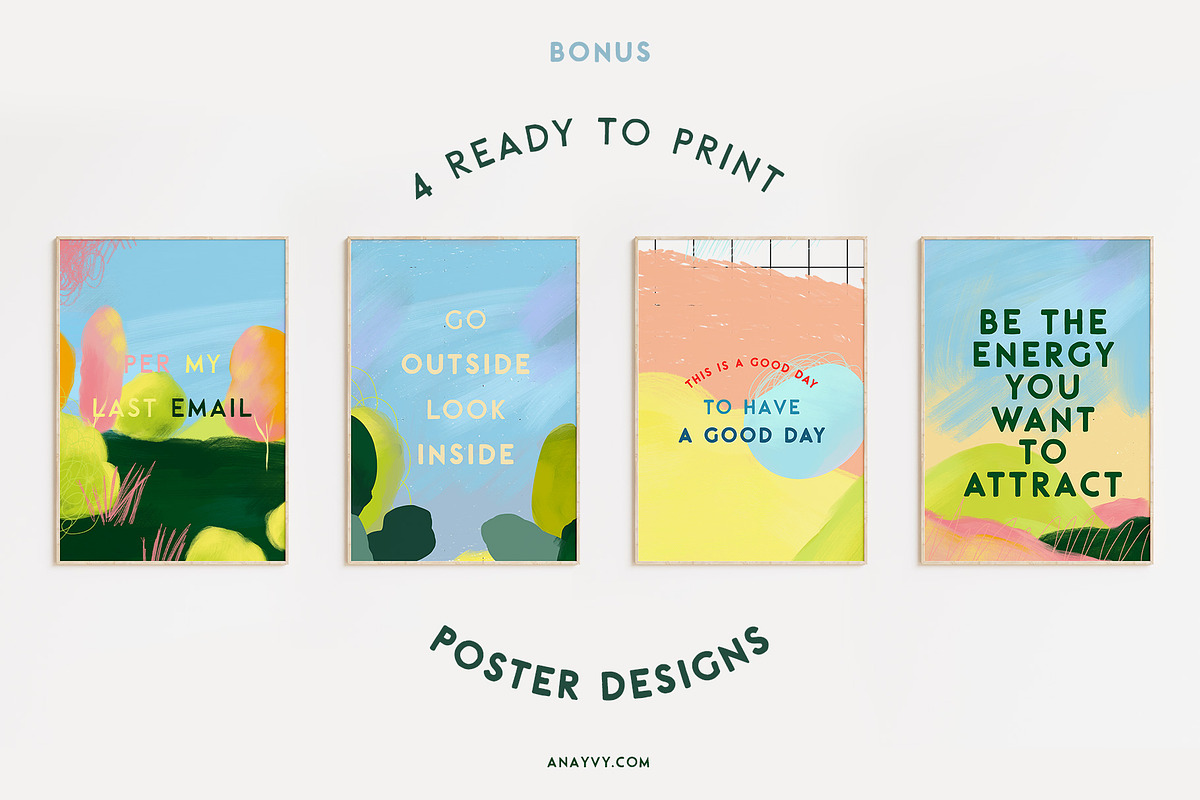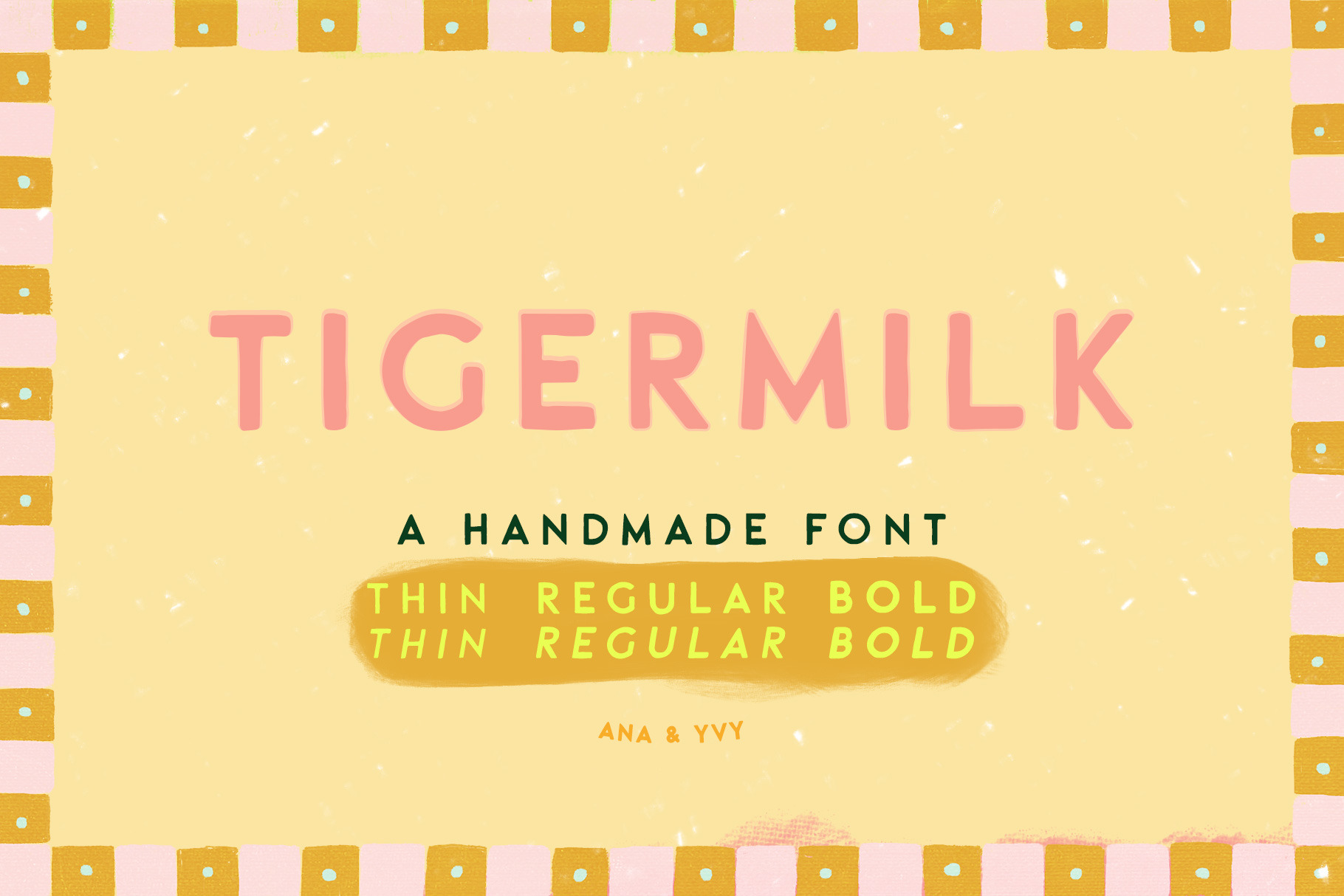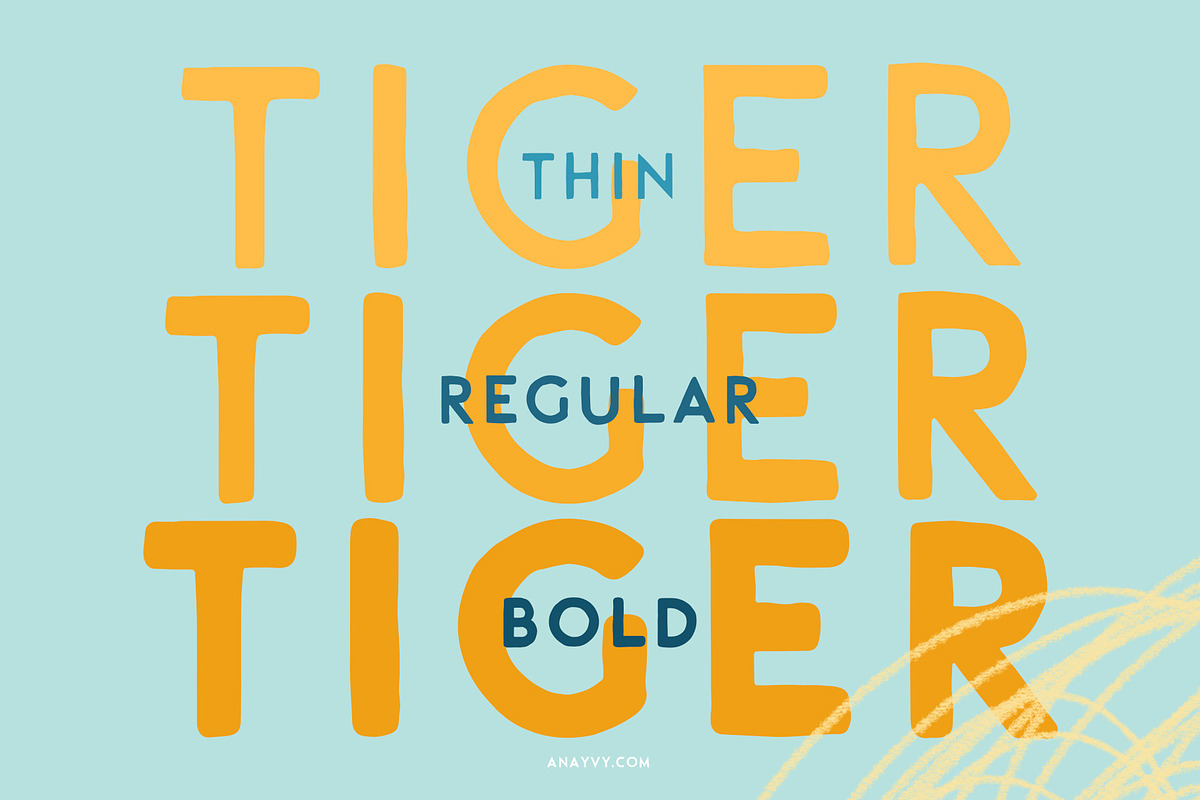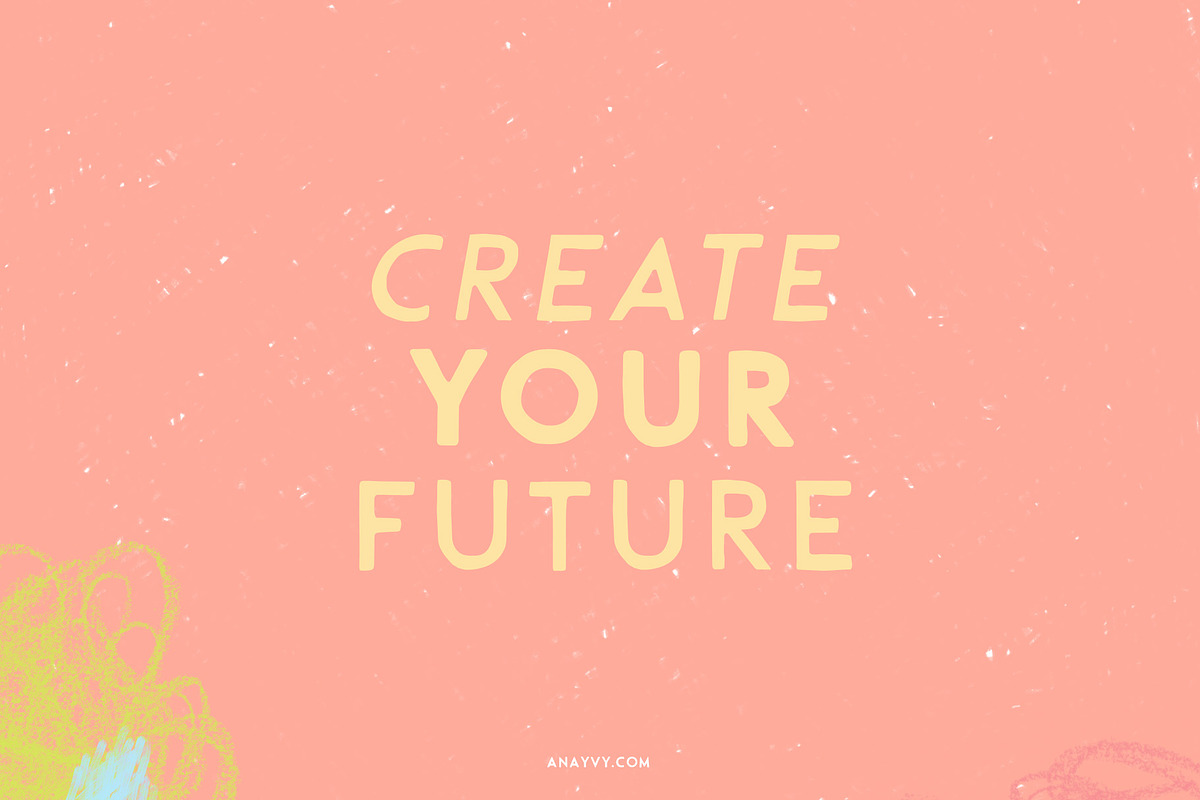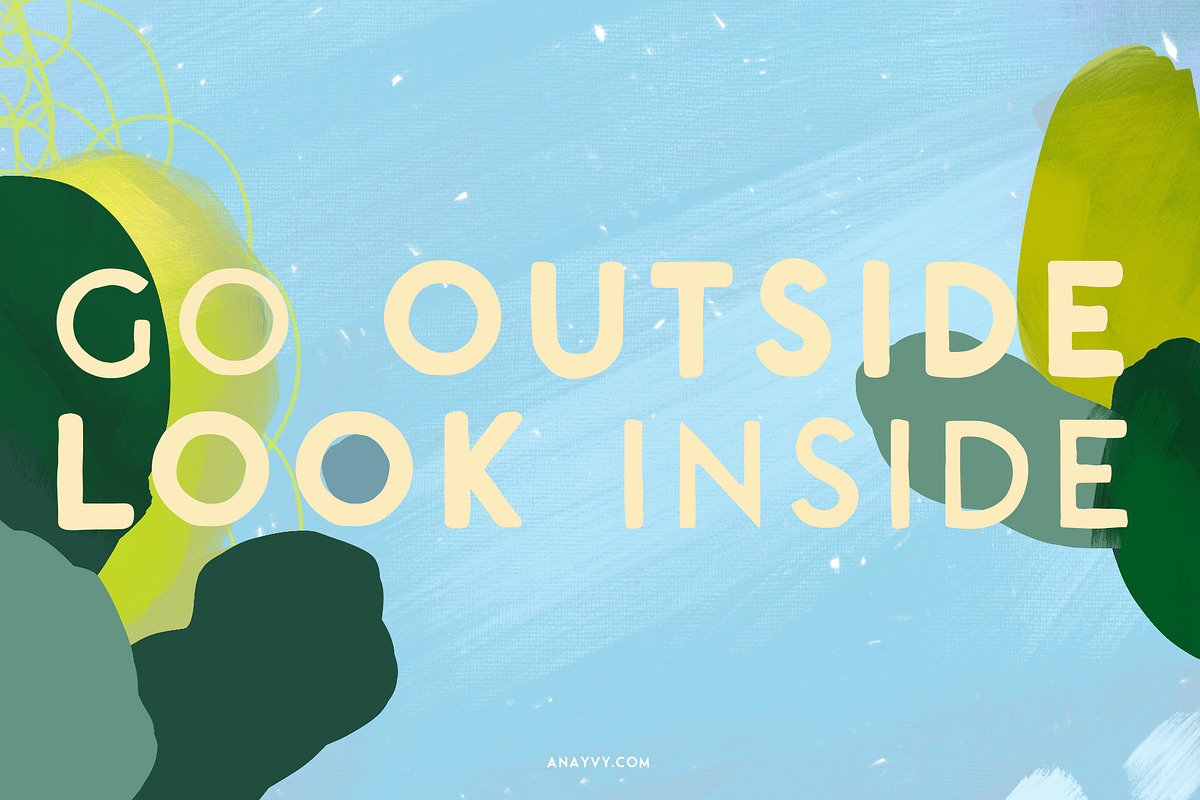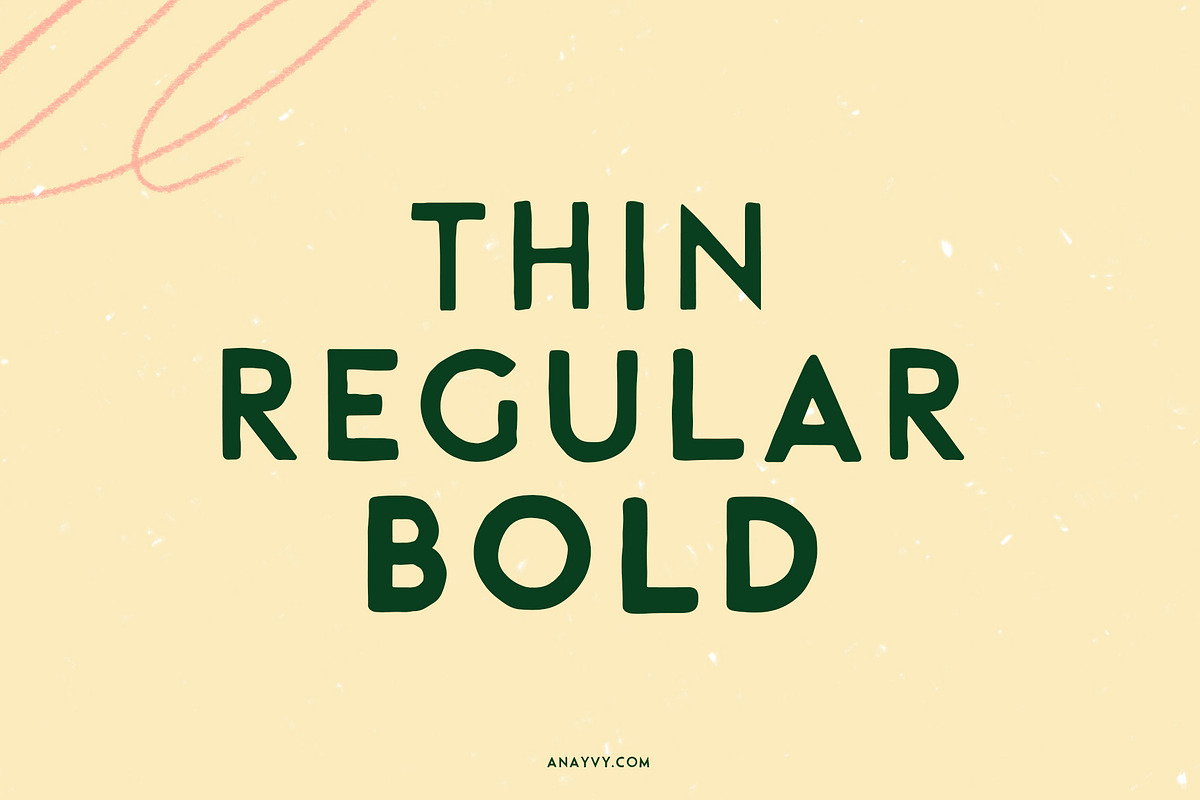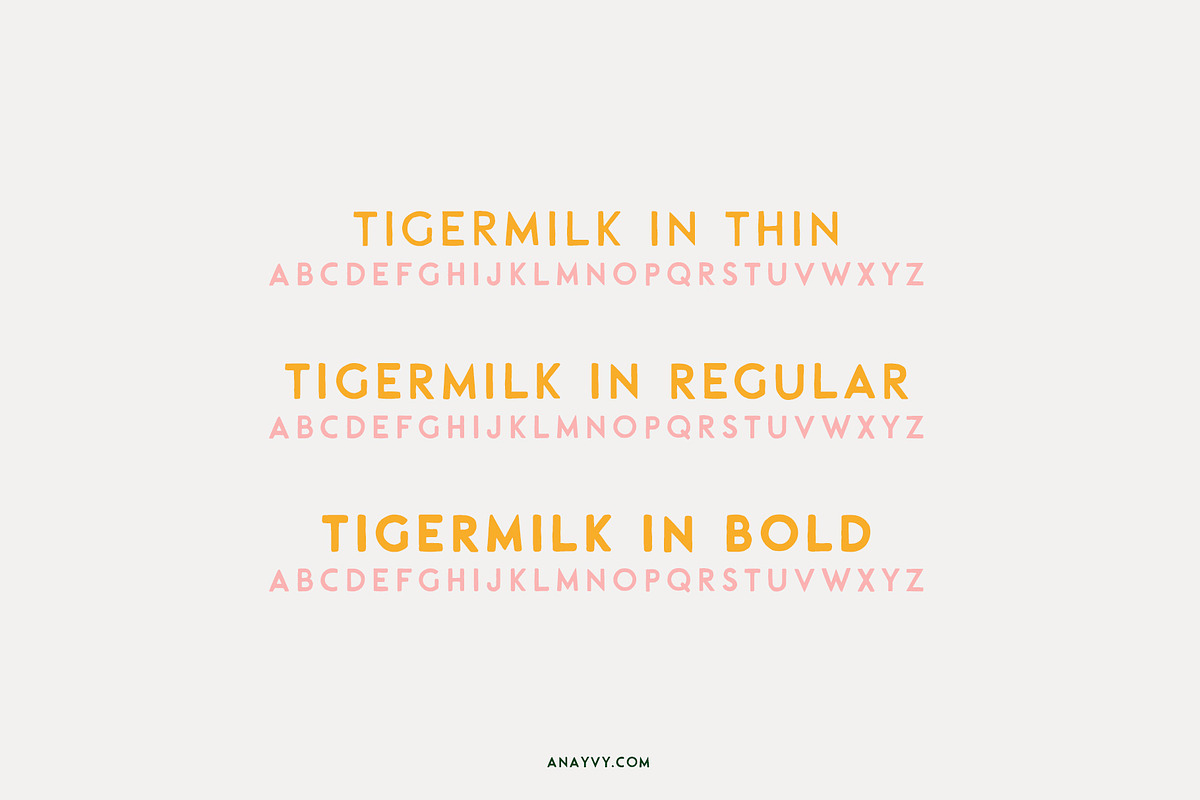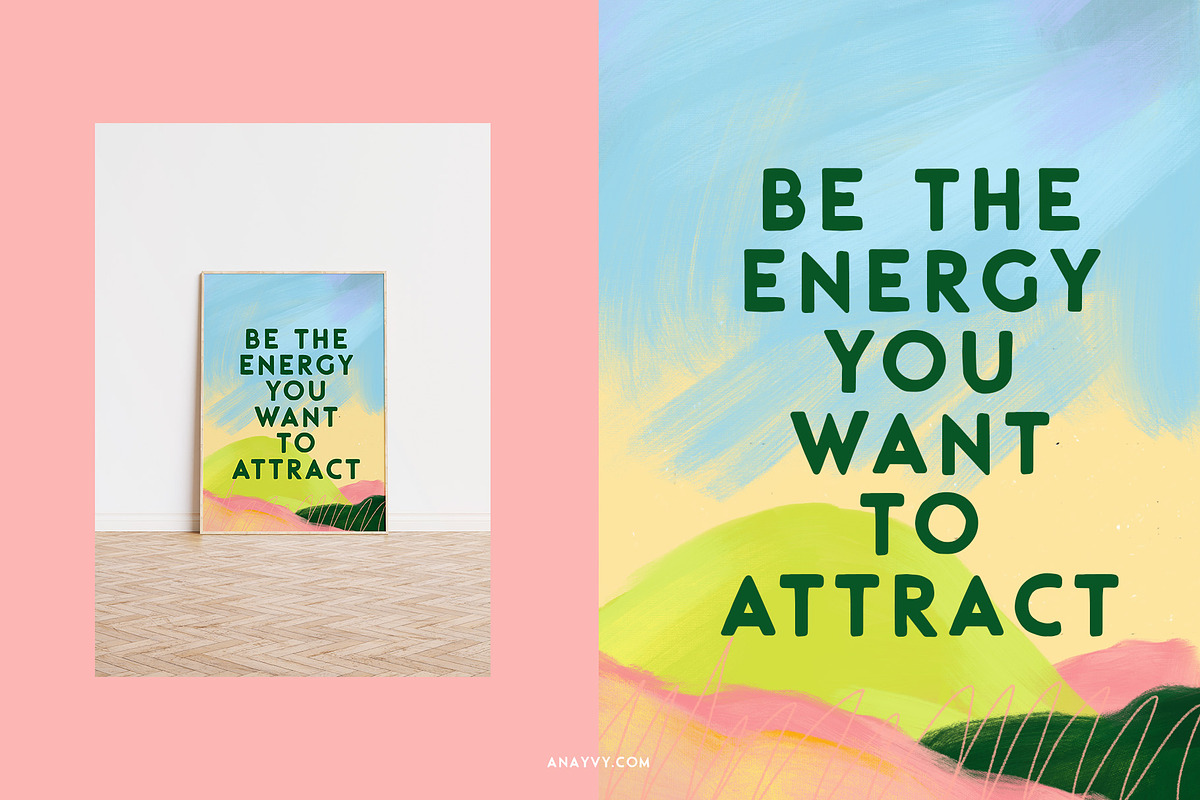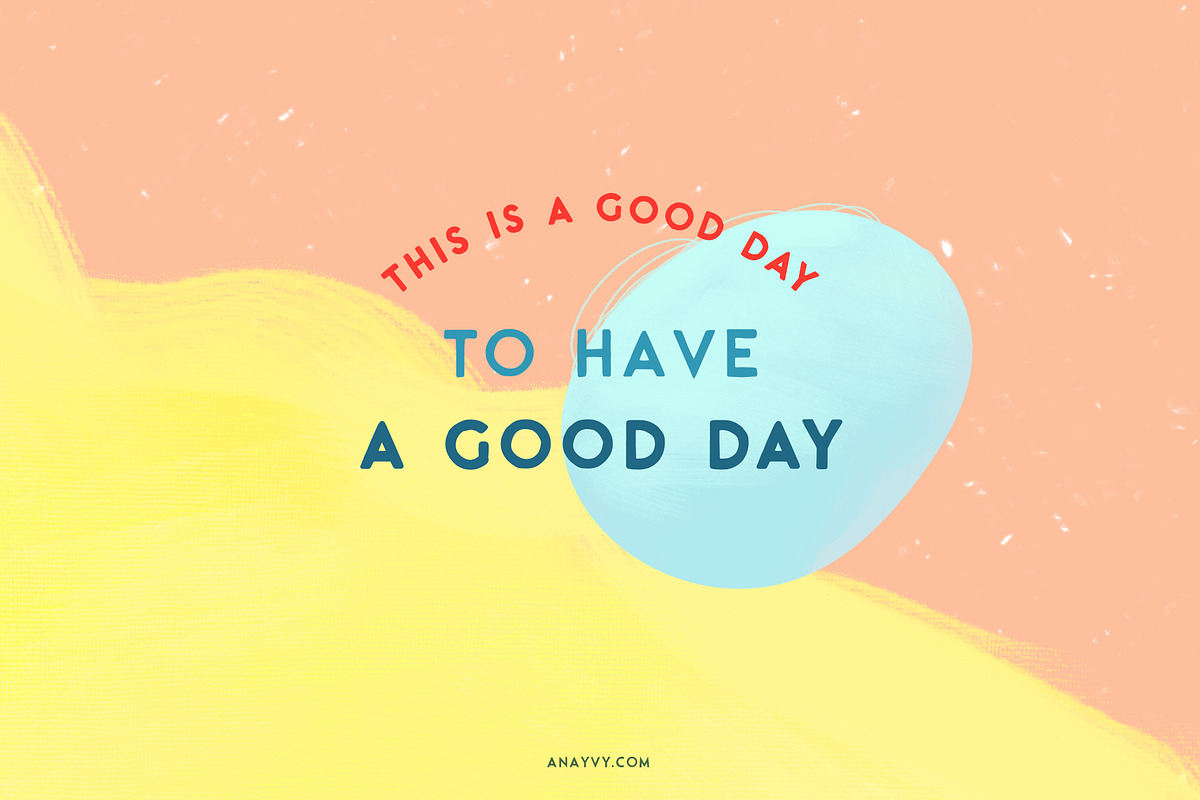
TIGERMILK handpainted cutiepie font
Say hello to TIGERMILK - a hand drawn cute as candy uppercase font family. This collection of bold, regular and thin hand-lettered typography styles are perfect for quotes, greeting cards, playful book covers and more! Tigermilk comes with a small goodie pack of hand drawn abstract elements - just for fun!